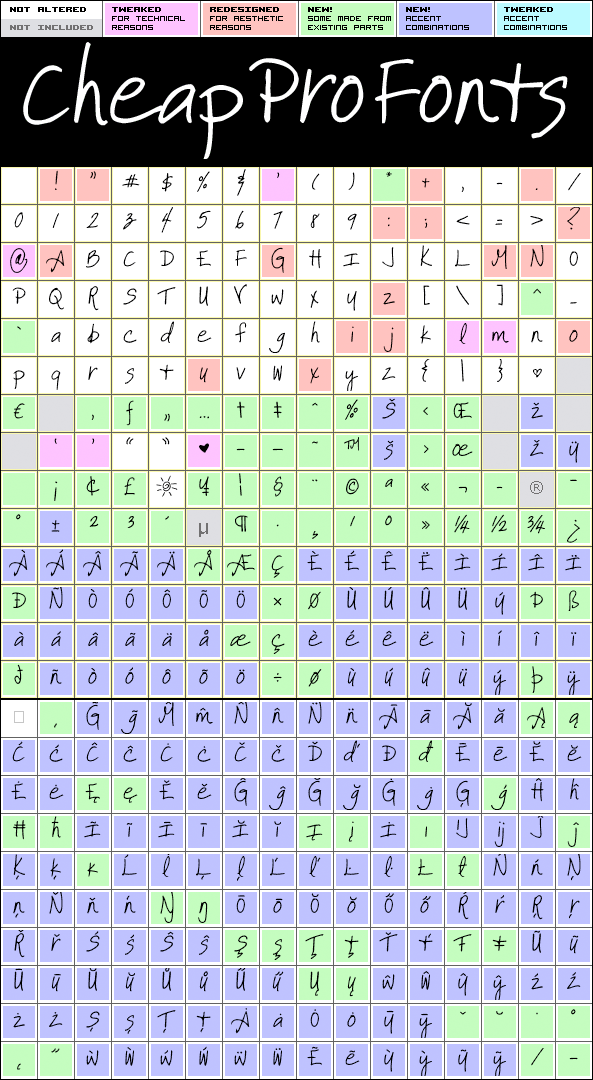
It Aint Rocket Science Pro
It Aint Rocket Science Pro by Kimberly Geswein
Kimberly Geswein
This font was reworked by request. It is another lovely handwritten font made by Kimberly Geswein - with its long e and c it gets a semi-connected look. Perfect for text with a personal touch :)
It Aint Rocket Science Pro is a professionally reworked font that contains an extended character set for setting text in 65 languages requiring more than the basic A-Z!